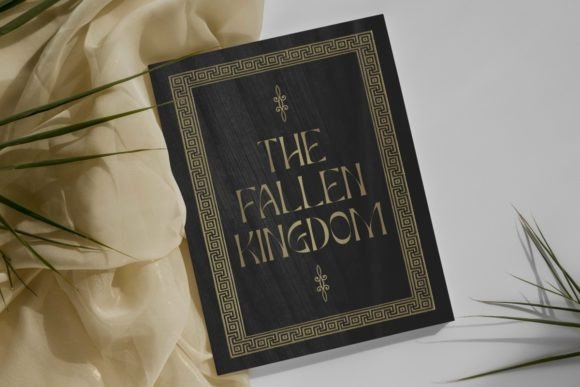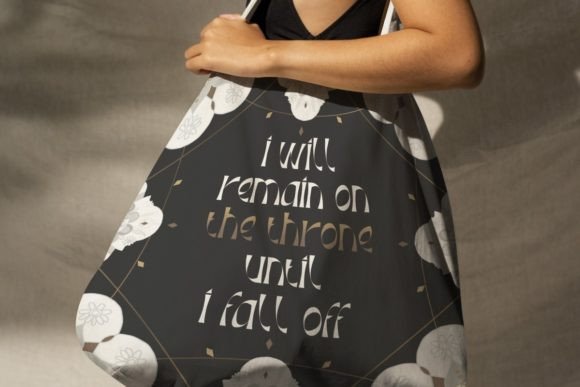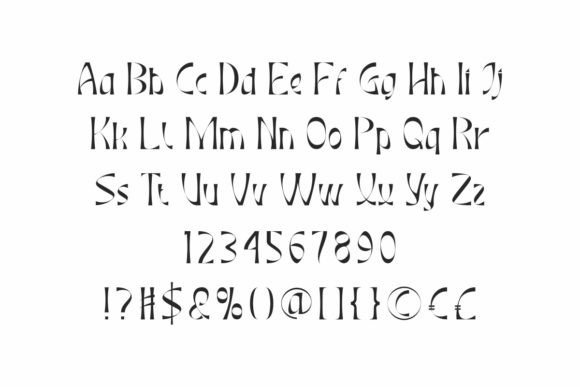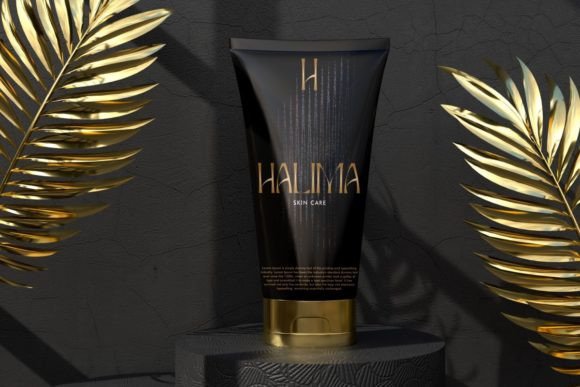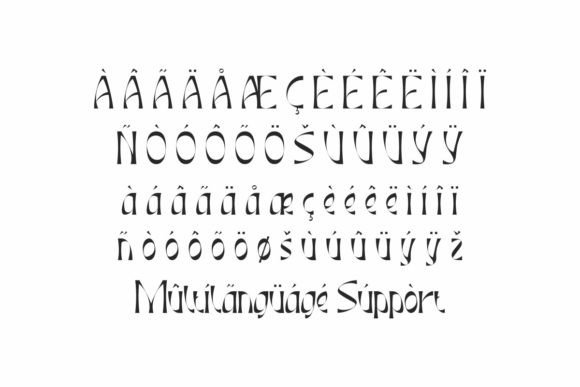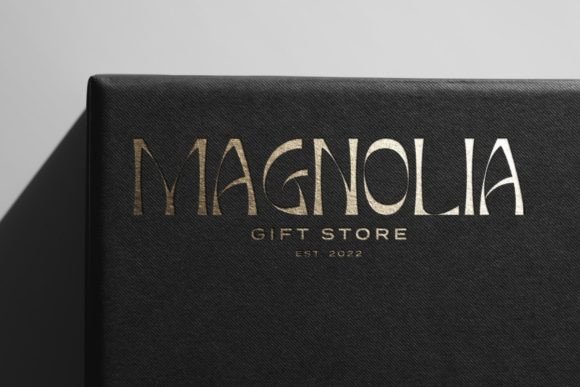
Get Ready to Rule with the British Throne Font
Have you ever stared at a blank page, waiting for the perfect font to come to life and capture the essence of your design? For designers, this moment is all too familiar. It’s the moment when the right font can make or break a project. And that’s exactly what the British Throne Font is designed to do – add a touch of royalty to your creations.
With its uniquely-shaped letters and playful charm, the British Throne Font is the perfect addition to any design. Inspired by the regal aesthetics of British culture, this font exudes a sense of whimsy and fun that’s sure to capture attention. Whether you’re working on a headline, poster, or branding project, the British Throne Font is a valuable asset that will take your design to the next level.
- Unique Characteristics: The British Throne Font features intricate, ornate details and a regal feel, making it perfect for titles, headings, and other display text.
Designer Review: British Throne Font
First off, I want to say that the British Throne Font has some great features that make it a solid choice for any design project. ✨ The font’s classic and regal feel immediately grabs your attention, and it’s perfect for creating a sense of luxury and sophistication. The bold lines and ornate details make it a great choice for titles, headings, and other prominent text.
One of the things I like most about this font is its versatility. ✨ It can be used for a wide range of projects, from wedding invitations to business proposals. The font also comes in a variety of weights, from light to heavy, which allows for a lot of flexibility in terms of design.
- ⚠️ The font may be too ornate for some designs, making it difficult to read in certain contexts.
- ⚠️ The font’s bold lines can make it look dated or over-the-top if not used carefully.
- ⚠️ Some users may find the font’s lack of subtlety makes it difficult to pair with other fonts.
Overall, I think the British Throne Font is a great choice for designers who want to add a touch of elegance and sophistication to their projects. While it may have some limitations, the font’s classic feel and versatility make it a solid addition to any design toolkit.
The British Throne Font is ideal for designing regal and formal documents, such as certificates, invitations, and formal letters. It can also be used for creating eye-catching logos and branding materials.